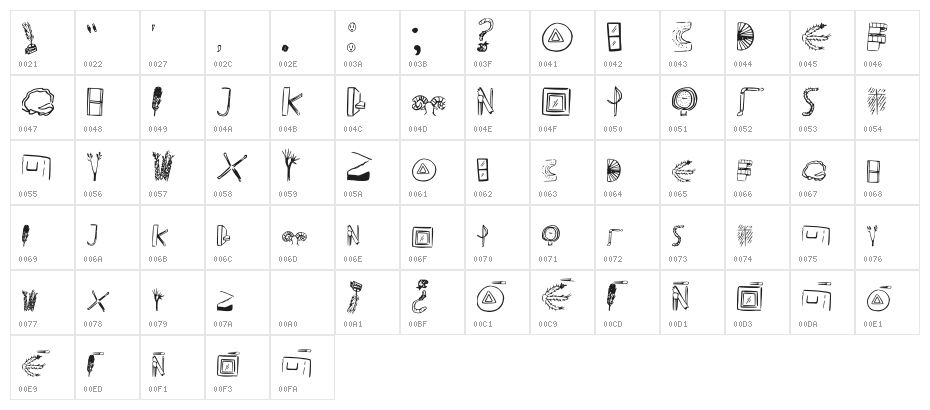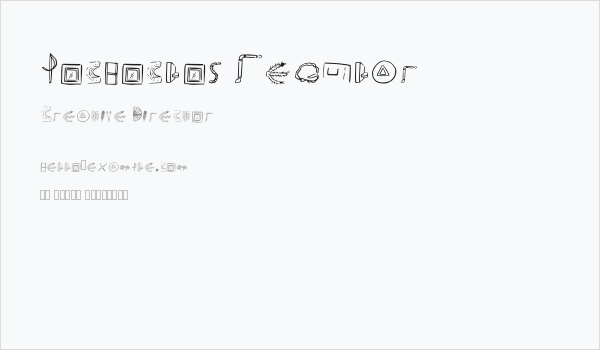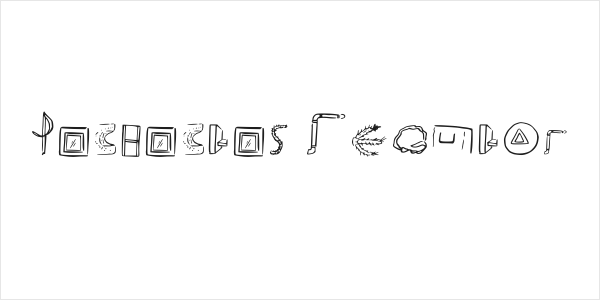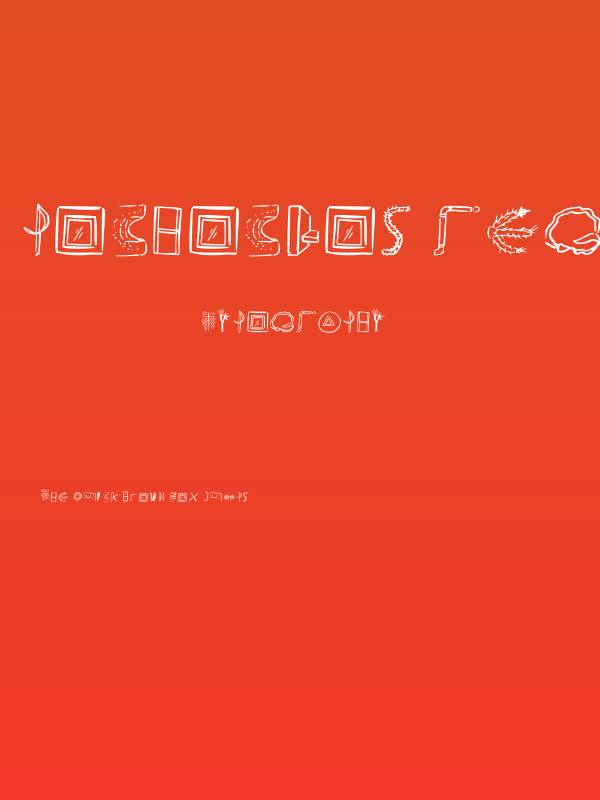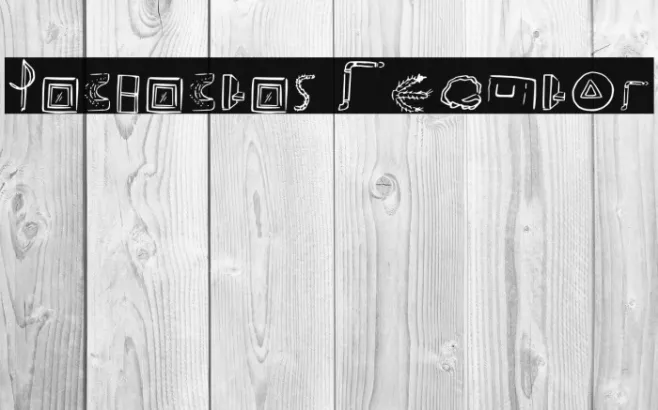
Pochoclos Regular Font
Pochoclos Regular Description
This font features a highly decorative and artistic style, with each character uniquely designed to incorporate elements of nature and abstract shapes. The letters are adorned with intricate patterns, such as leaves, feathers, and geometric shapes, giving it a whimsical and playful appearance. The design is bold and eye-catching, making it ideal for creative projects that require a distinctive and artistic touch. The characters vary in width and form, contributing to an overall dynamic and eclectic look.
| Use Case | Logos, Posters, Artistic Projects |
| Proposed Projects | Ideal for artistic projects, posters, album covers, and creative branding that require a unique and eye-catching typeface. |